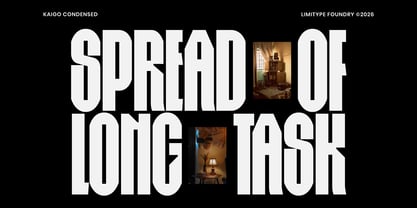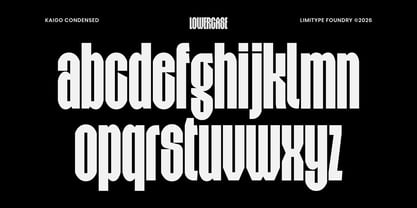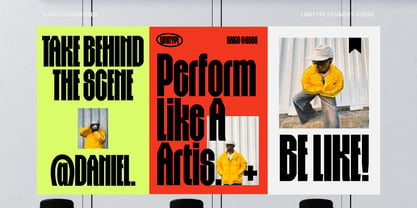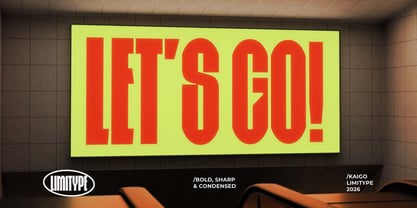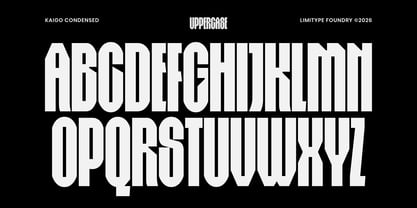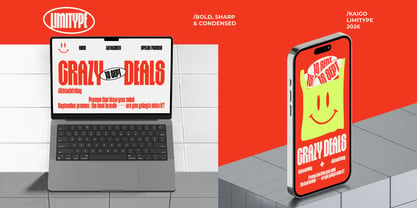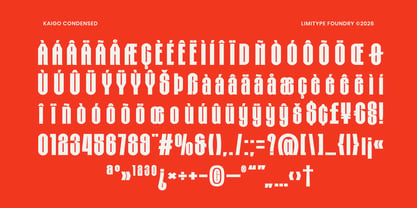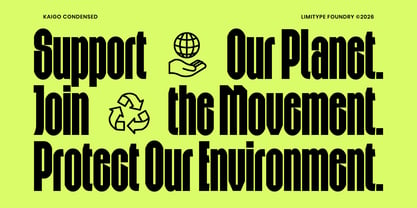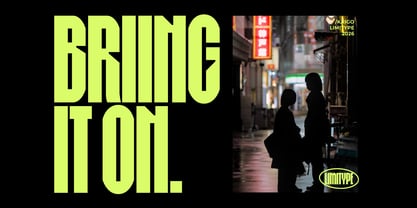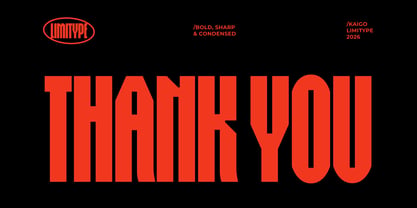
Kaigo
by limitype
The Kaigo Font Family was designed by Muhammad Muammar, Furqan Sudirman and published by limitype. Kaigo contains 1 styles. More about this family
Kaigo is a bold condensed display font with extreme proportions and a strong geometric character. Its tall, tightly packed letterforms feature diagonal cuts, sharp angles, and distinctive cut in details, creating a sharp and distinctive typographic style. With its condensed structure and solid forms, Kaigo is ideal for posters, headlines, branding, editorial, packaging, and other display typography applications.
Designers: Muhammad Muammar, Furqan Sudirman
Foundry: limitype